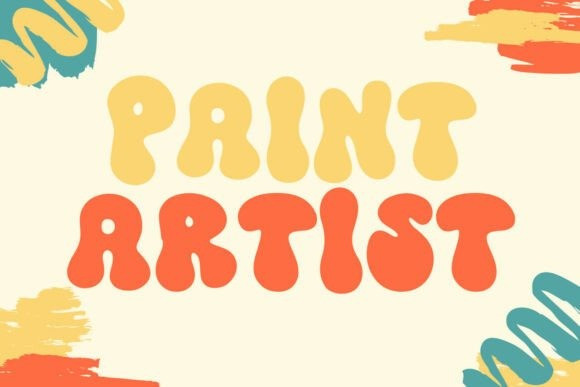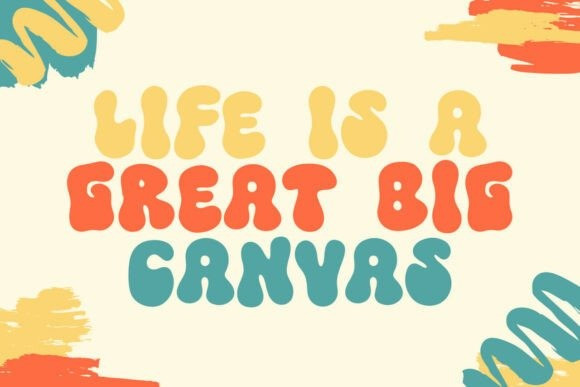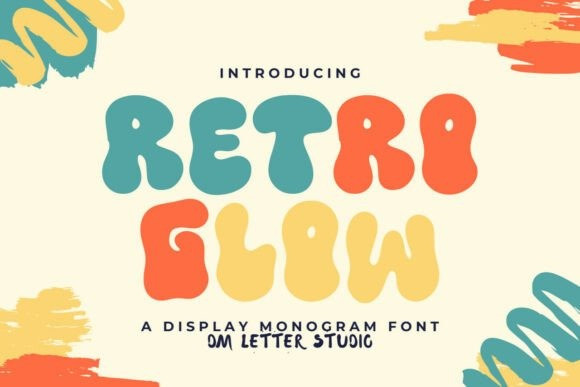
Retro Glow Font
Retro Glow Font brings neon nostalgia with clean, modern clarity. Letters feel bold and smooth. Angles stay sharp, yet the forms read fast on any screen. Because the shapes echo 80s posters and arcade titles, your words gain instant vibe. Use it for logos, covers, thumbnails, posters, and music promos. Moreover, it pairs easily with a simple sans, so layouts stay tidy.
Where Retro Glow Font shines
Set short titles, artist names, and punchy taglines. Then add glow, gradients, and star speckles to heighten the mood. Since spacing is tuned for headlines, pages build in minutes. As a result, you can launch full branding kits for DJs, streamers, and digital products. Plus, the strokes remain crisp at small sizes, which helps your thumbnails pop.